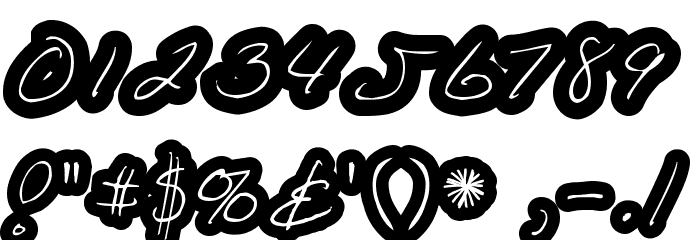
KathleenInline Font
This font features a bold, cursive style with a playful and energetic vibe. The letters are interconnected, creating a fluid and continuous flow that mimics natural handwriting. The strokes are thick and consistent, providing a strong visual impact. The uppercase and lowercase letters maintain a cohesive style, with rounded edges and a slight slant to the right. Numbers and special characters are designed to match the overall aesthetic, ensuring uniformity across all glyphs. This font's dynamic appearance makes it suitable for projects that require a lively and informal touch.
A bold, cursive font with a playful and energetic style.
- Proposed Projects: Ideal for greeting cards, playful branding, children's books, and social media graphics.
- Character Spacing: Tight
- Overall Style: Decorative
- Use Case: Logos, Headlines, Posters